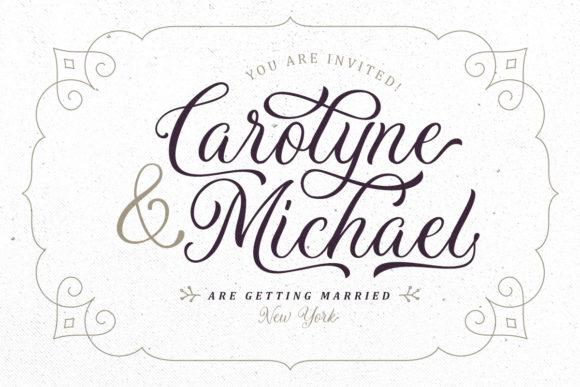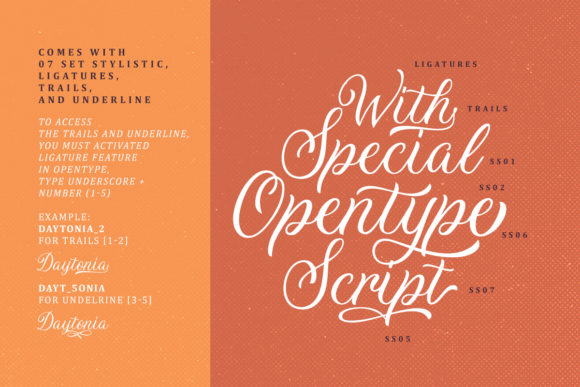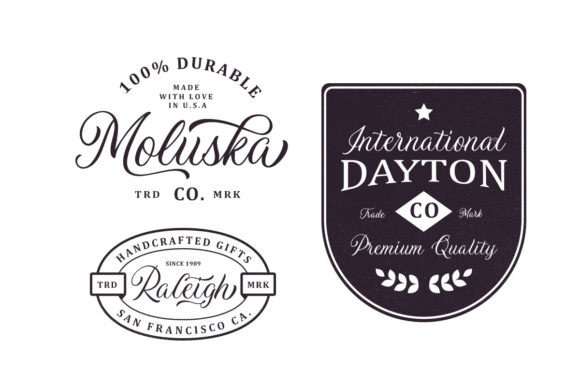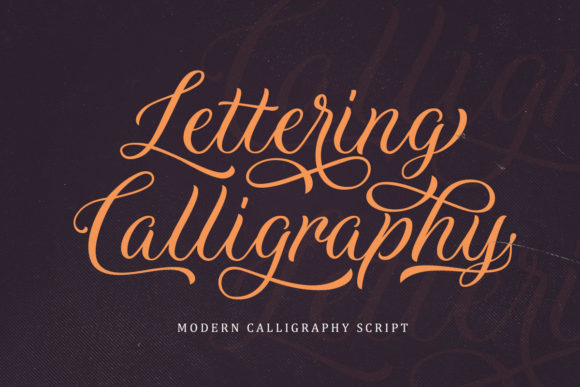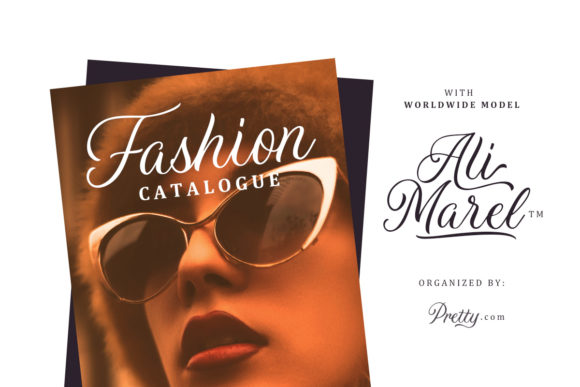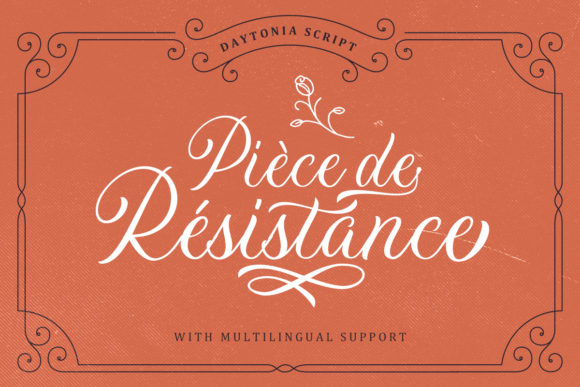
Discover the Charm of Daytonia Font: A Handmade Script Font for Creative Projects
In the world of typography, few fonts manage to capture the essence of handcrafted elegance and versatility as effectively as the Daytonia Font. This beautiful, handmade script font has been gaining popularity among designers, crafters, and DIY enthusiasts for its unique charm and wide range of applications. Whether you’re working on branding, logos, hand lettering, apparel designs, or any other creative project, Daytonia Font is an excellent choice to add a personal touch and stand out from the crowd.
What Makes Daytonia Font Special?
The Daytonia Font is distinguished by its handcrafted nature, offering a warm and organic feel that is hard to replicate with digital fonts alone. Its unique characteristics include:
- Elegant and Fluid Lines: Daytonia boasts smooth, flowing lines that give it a sophisticated yet approachable feel, making it perfect for projects that require a touch of elegance.
- Versatility: From branding and logos to hand lettering and apparel designs, Daytonia’s flexibility shines through, adapting seamlessly to various design needs.
- Handmade Charm: The font’s handmade origin lends it an authentic, one-of-a-kind appeal that digital fonts often lack, allowing designers to infuse their work with personality.
Applications of Daytonia Font
The Daytonia Font’s adaptability and aesthetic appeal make it suitable for a wide array of creative projects. Here are some of the most popular applications:
Branding and Logos
In the competitive world of branding, standing out is crucial. Daytonia Font offers a distinctive and memorable style that can help brands leave a lasting impression. Its elegance and charm can elevate a brand’s identity, making it more relatable and appealing to the target audience.
Hand Lettering and Calligraphy
For artists and designers interested in hand lettering and calligraphy, Daytonia Font serves as an excellent reference or direct inspiration. Its fluid lines and elegant strokes can guide the creation of beautiful, handmade pieces that showcase skill and creativity.
Apparel Designs
Designing for apparel requires fonts that are not only visually appealing but also comfortable to wear and easy to read. Daytonia Font fits the bill perfectly, offering a stylish and comfortable look that will make any apparel design stand out.
Tips for Using Daytonia Font Effectively
To make the most of Daytonia Font, consider the following tips:
- Pair with Complementary Fonts: When combining Daytonia with other fonts, choose ones that complement its elegance and handmade feel. Simple sans-serifs or serif fonts can create a beautiful contrast.
- Experiment with Colors and Textures: Enhance Daytonia’s charm by experimenting with different colors and textures. Earth tones, pastels, or rich jewel tones can add depth and interest to your designs.
- Adjust and Customize: Don’t be afraid to adjust the font size, spacing, and style to fit your project’s needs. Customization can help achieve a more personalized look.
The Daytonia Font is a treasure for designers and crafters looking to infuse their projects with a touch of handmade elegance and personality. Its versatility, charm, and wide range of applications make it an invaluable tool in the world of design. Whether you’re creating branding materials, hand lettering, or apparel designs, Daytonia Font offers the perfect blend of style and authenticity to make your work truly stand out.